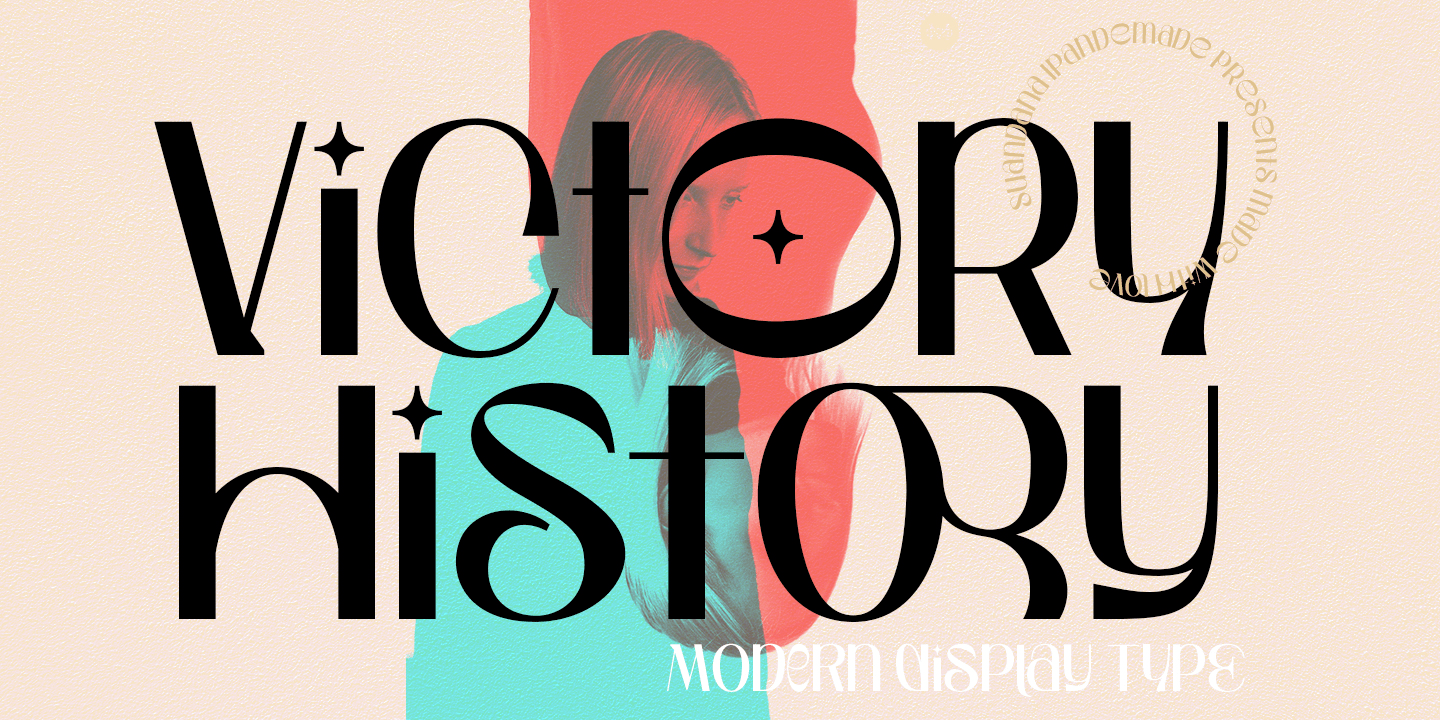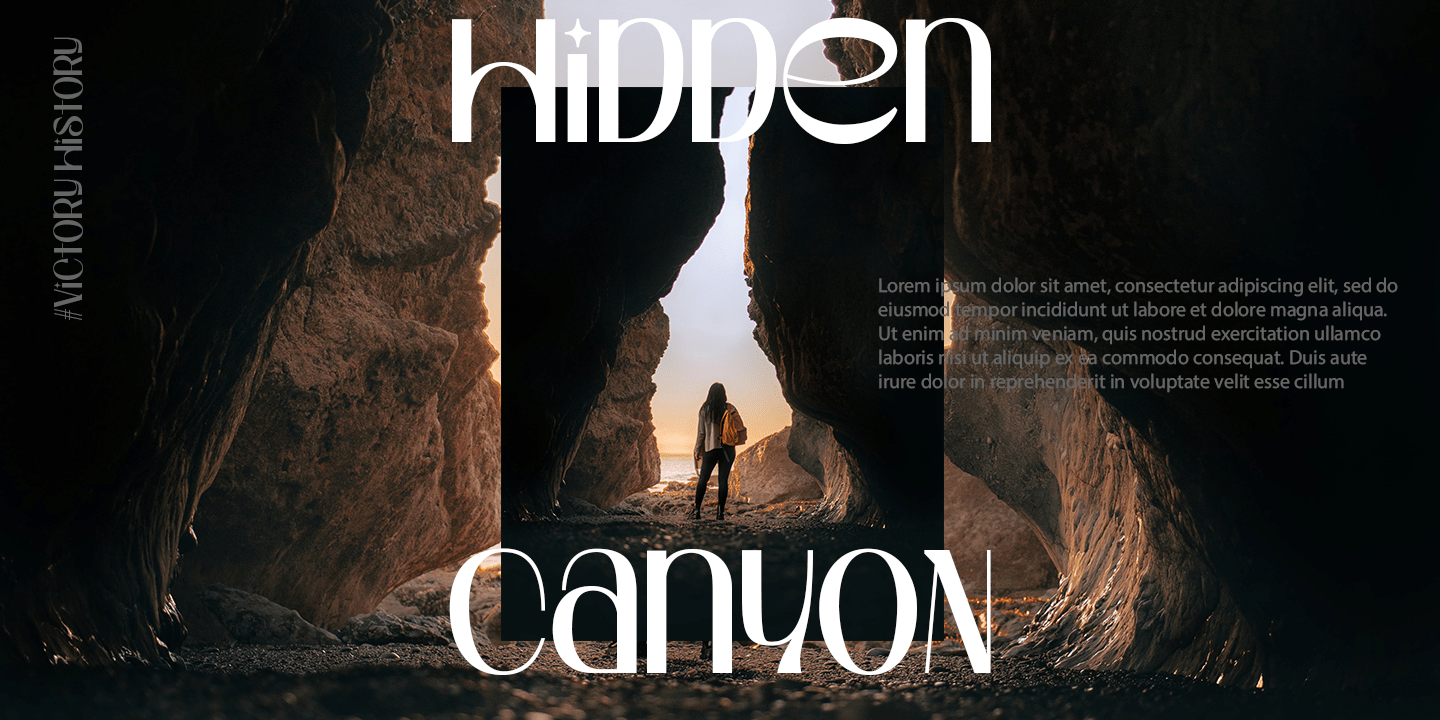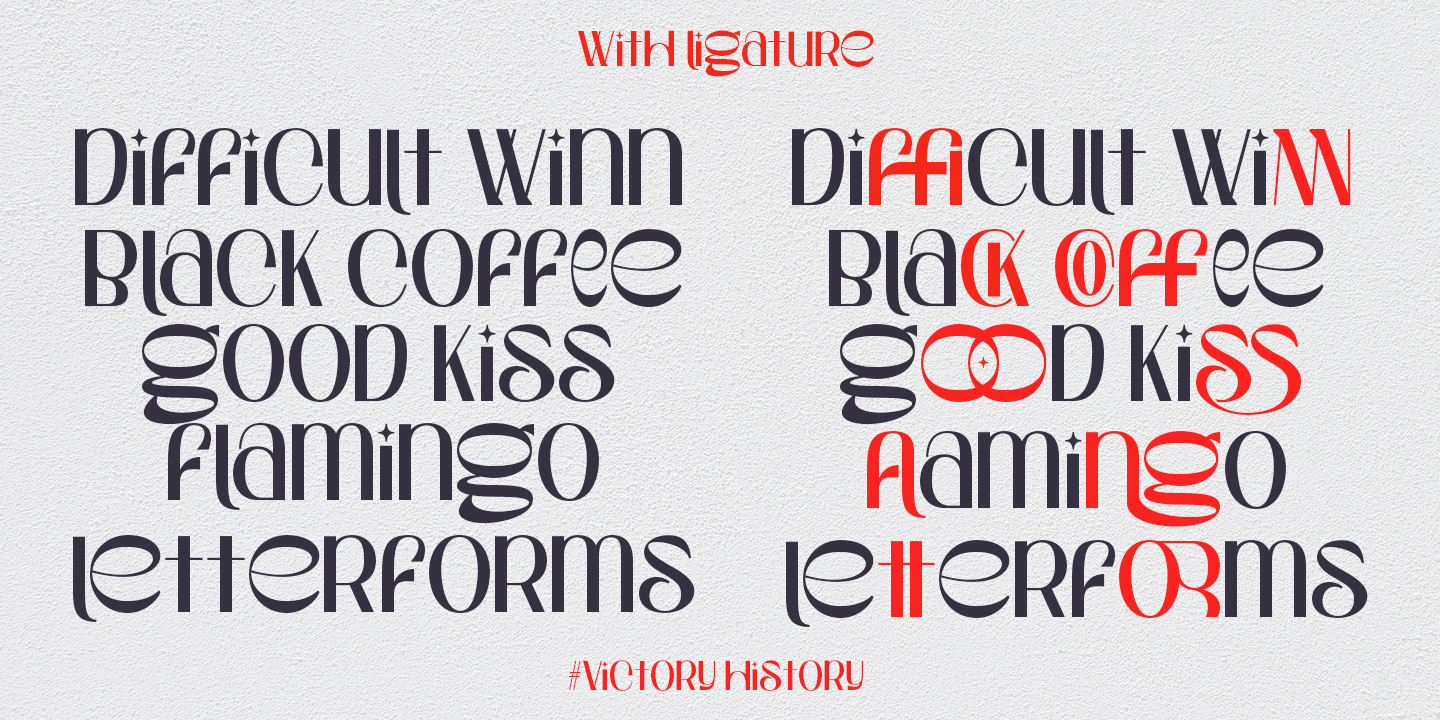
Victory History Sans Serif Font
It’s a Modern Sans, use this font for any branding, product packaging, invitation, quotes, t-shirt, label, poster, logo etc.